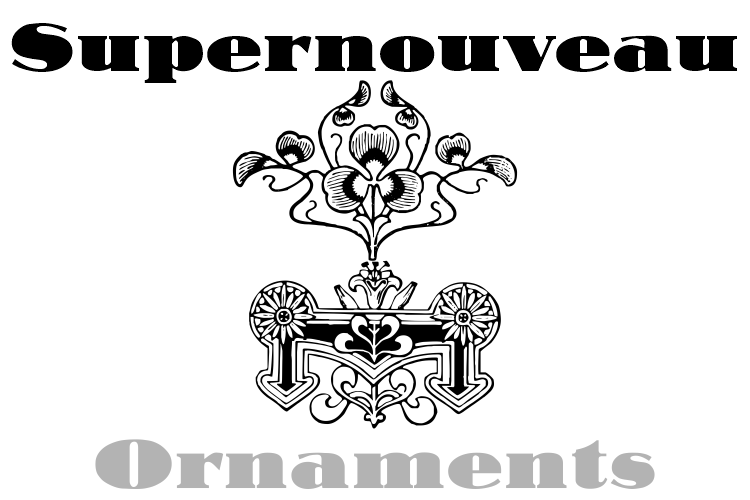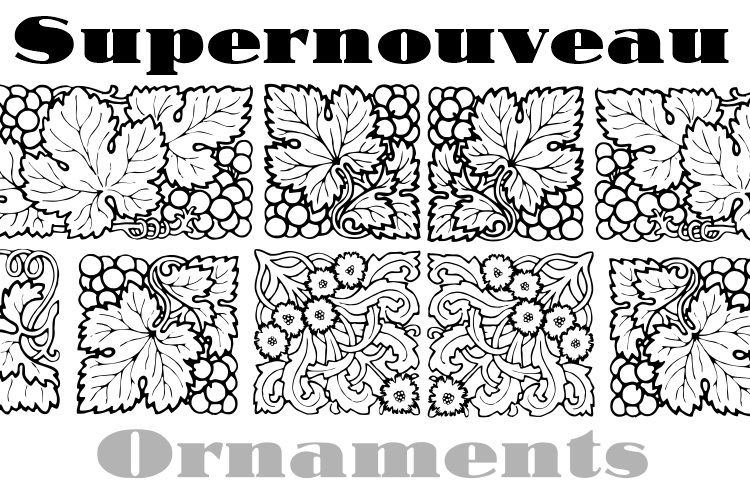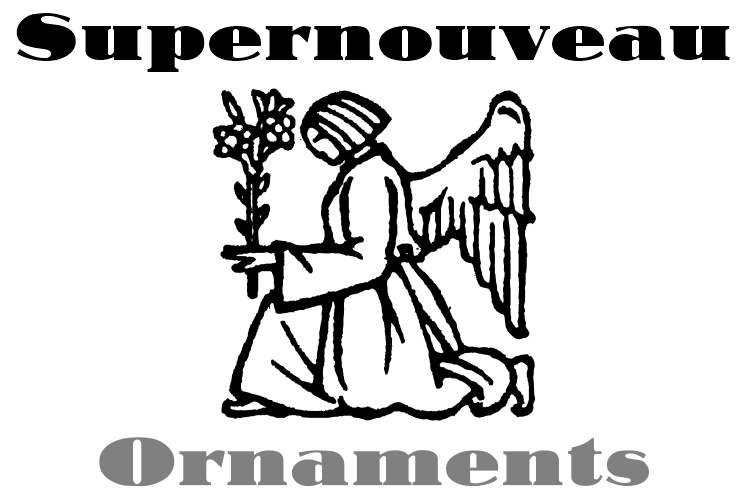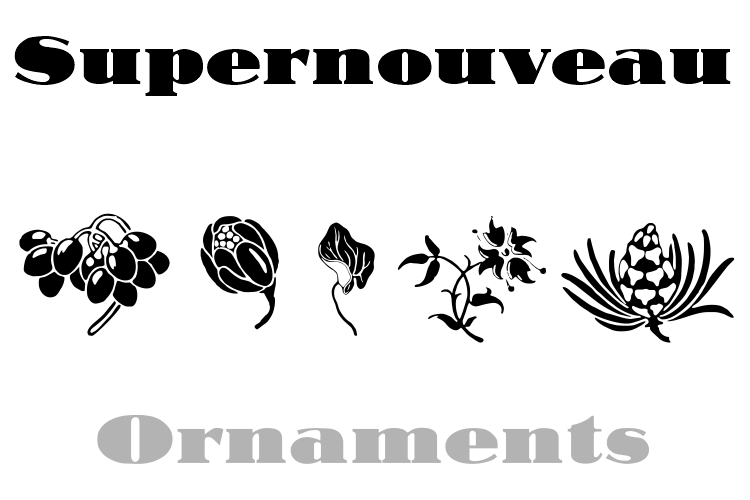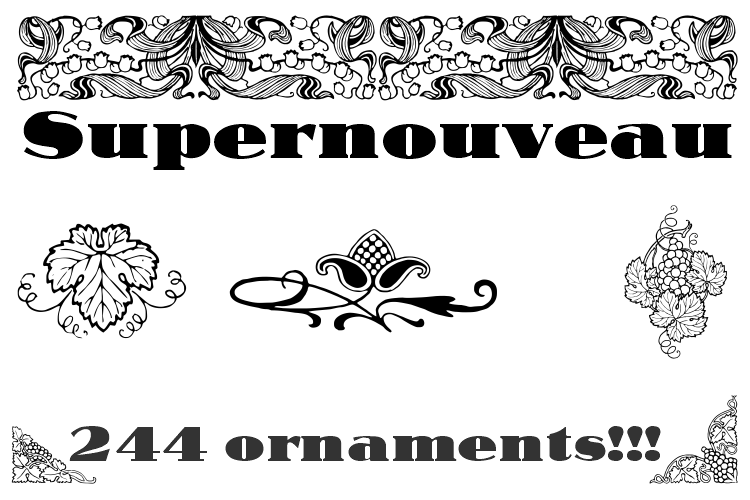
Supernouveau
Font Family by Intellecta Design
Supernouveau is a handfull and easy to use font with 244 pieces of art nouveau elements of decoration : frames, cuts, tailpieces, headpieces among others... Ready to use to make patterns, book coovers, publishing design, package material and all you need in your design with a XIX to XX century first decades feeling of beauty.